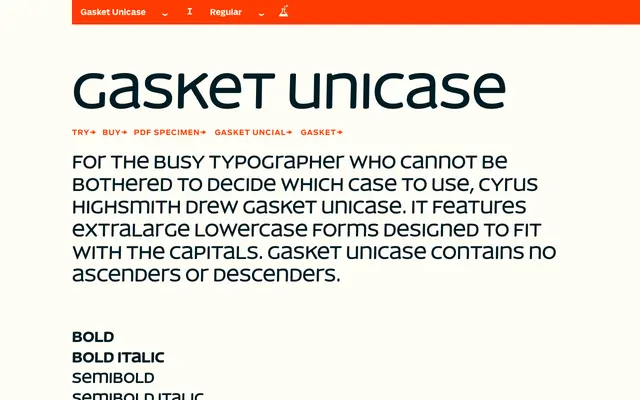
Gasket Unicase
A unicase display type by Cyrus Highsmith in which oversized lowercase letters are drawn to match capital height, eliminating ascenders and descenders entirely.
Designed by Cyrus Highsmith in 2016, Gasket Unicase solves the upper-versus-lower-case dilemma by making it irrelevant: lowercase forms are scaled up to sit alongside capitals without the usual vertical interruptions of ascenders or descenders. Six weights from Thin to Bold each carry an italic, giving reasonable range for a typeface with such a specific structural premise. The result suits display settings where an even, contained texture is more useful than conventional case contrast.
Gasket Unicase is a display typeface built on a unicase principle, with oversized lowercase forms scaled to match the capitals and no ascenders or descenders, placing it firmly in the display category with a structural quirk that resists standard serif or sans-serif classification.